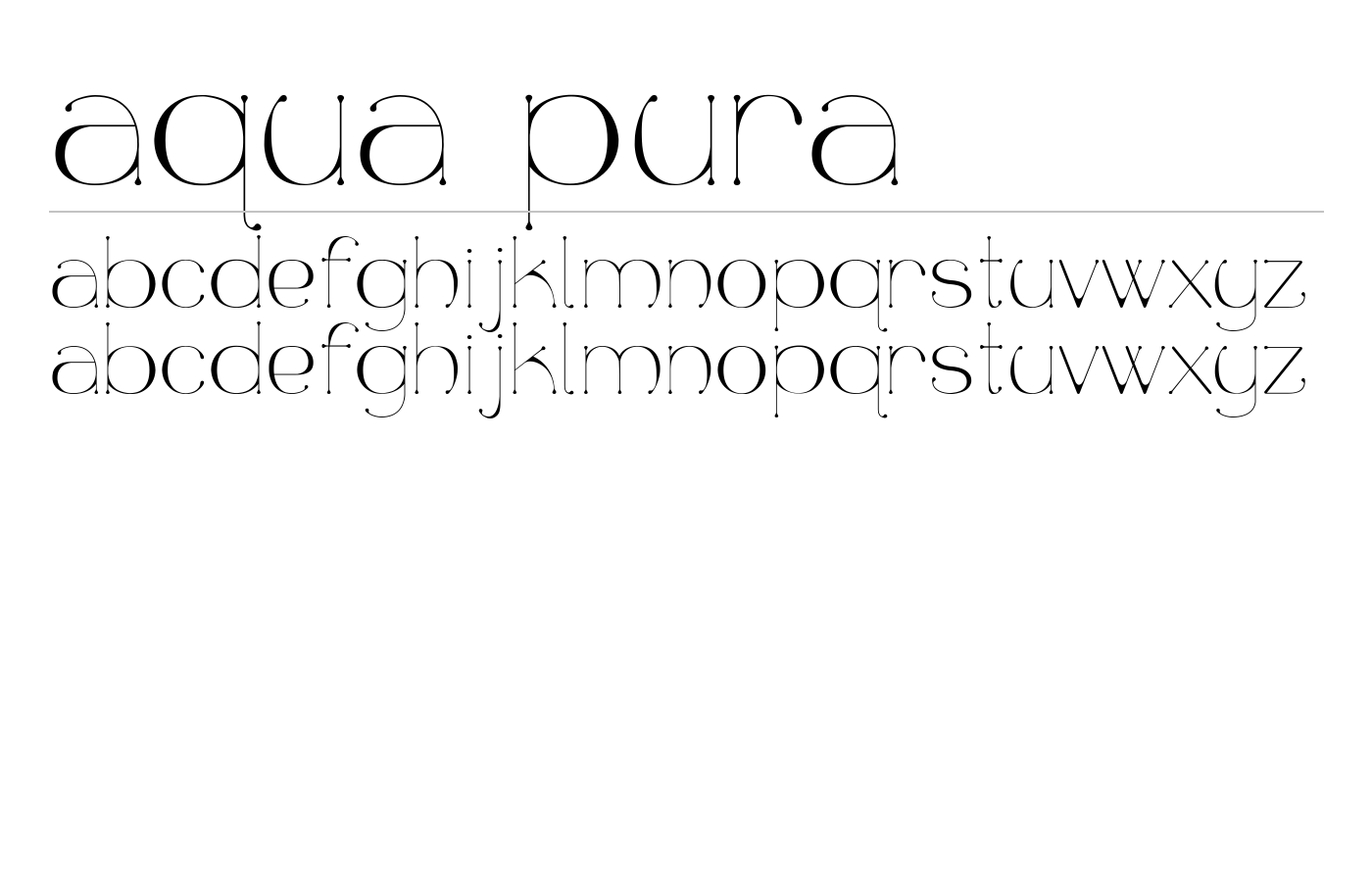
Aqua Pura is a delicate, modern serif font with an elegant and artistic feel, featuring thin strokes accented by small teardrop-shaped terminals that add a whimsical touch. Its high contrast between thick and thin lines, combined with slender letterforms and distinctive details like the elongated descenders, makes it ideal for stylish branding, editorial headlines, and luxury packaging where a refined, sophisticated look is desired. This font brings a unique blend of contemporary grace and playful charm, perfect for creative projects that seek to stand out with subtle elegance.
aqua pura Font
About aqua pura Font